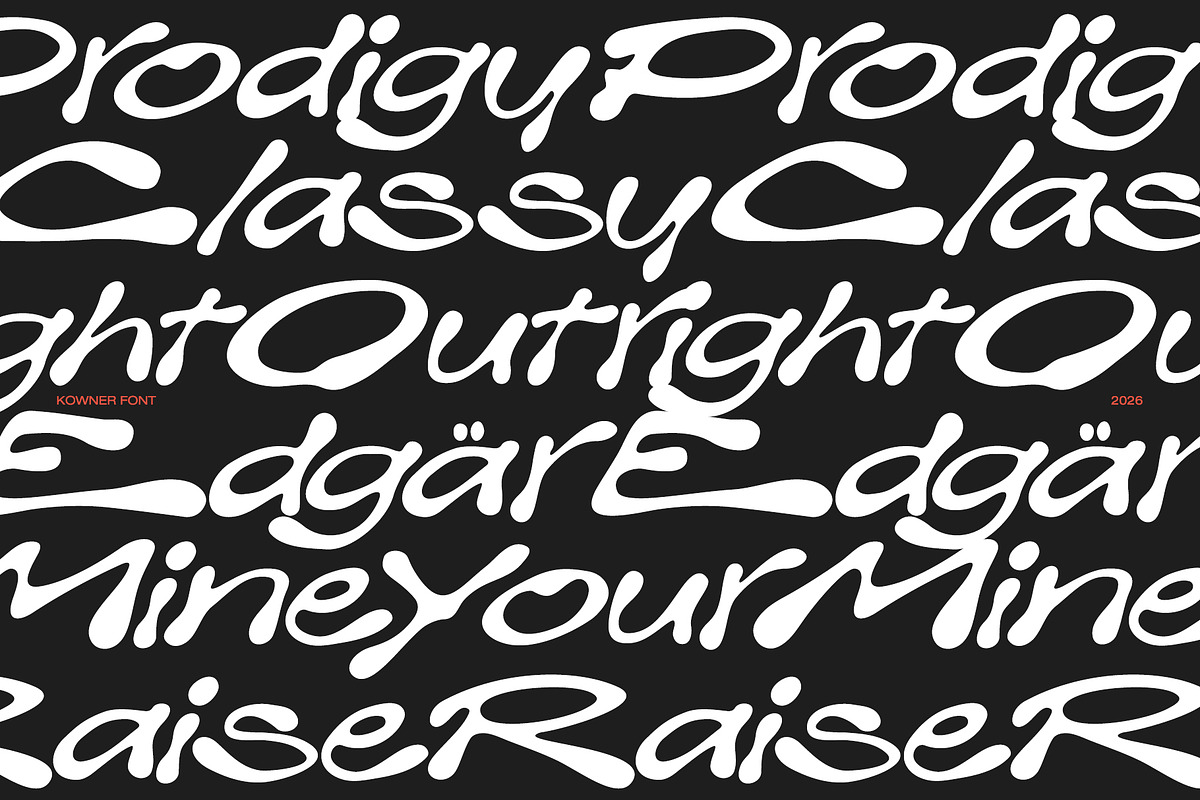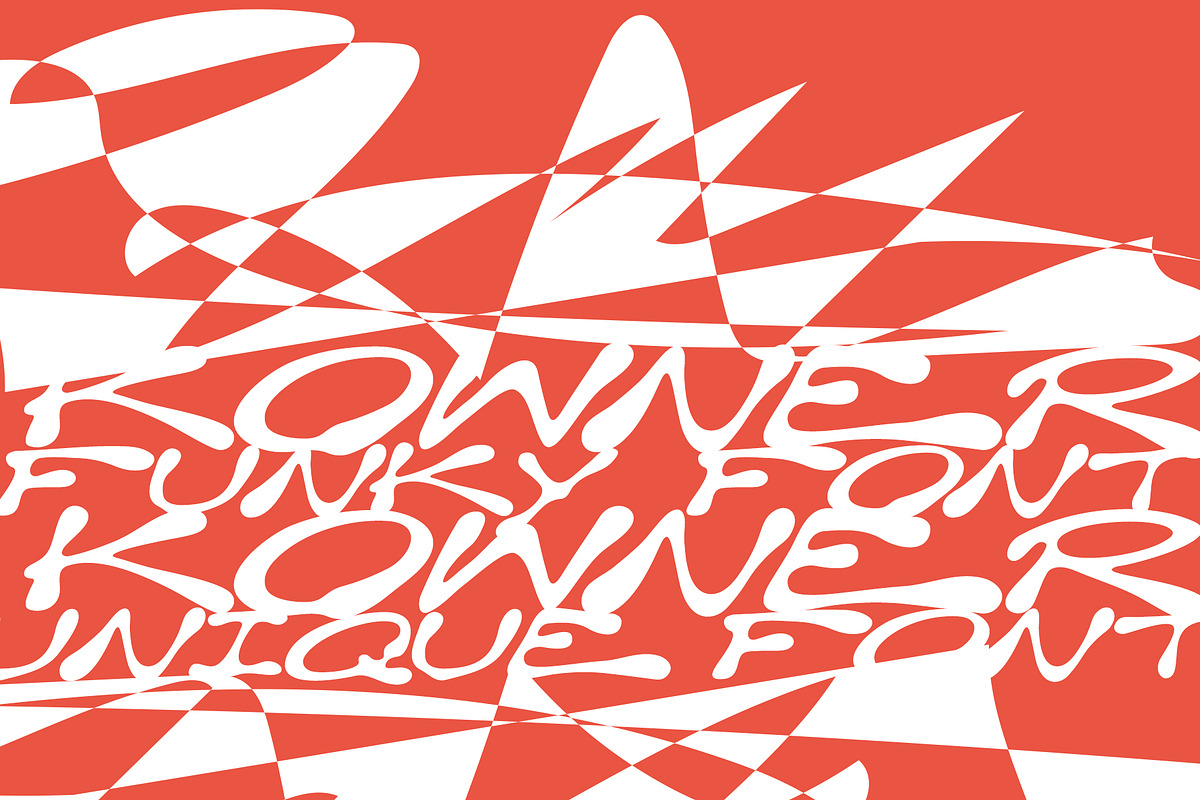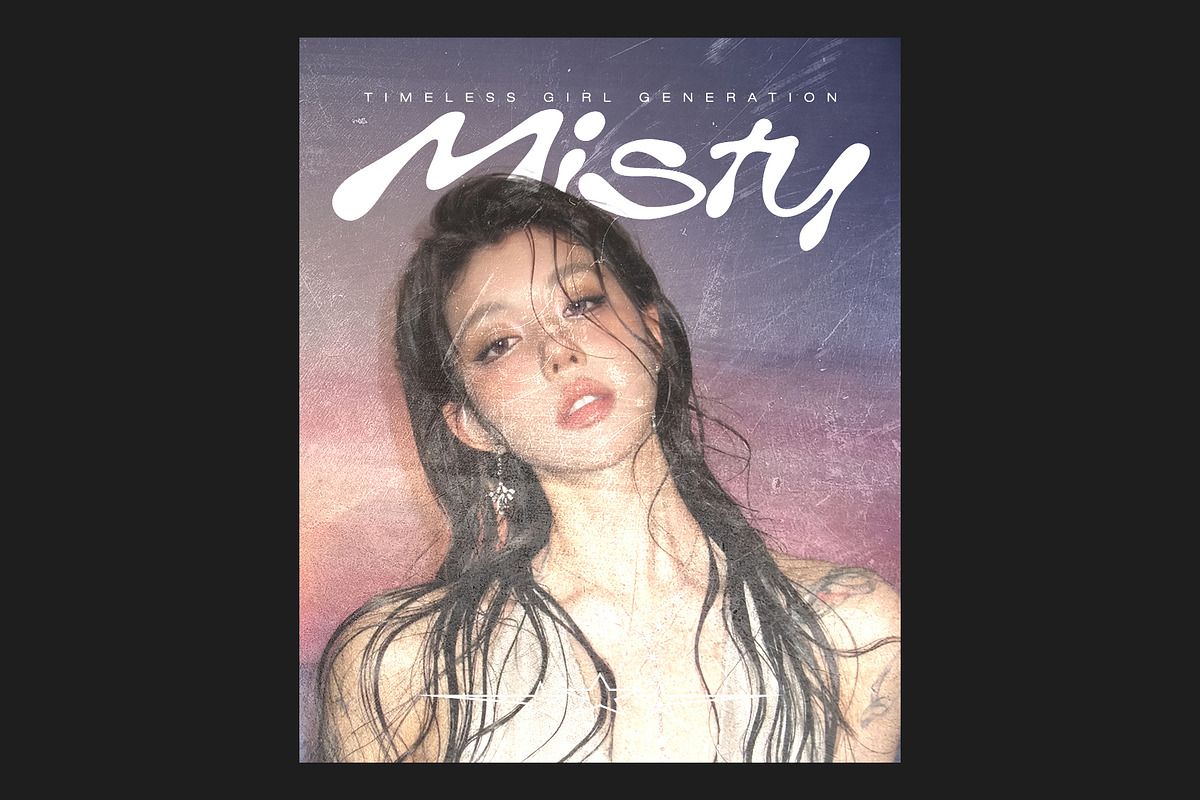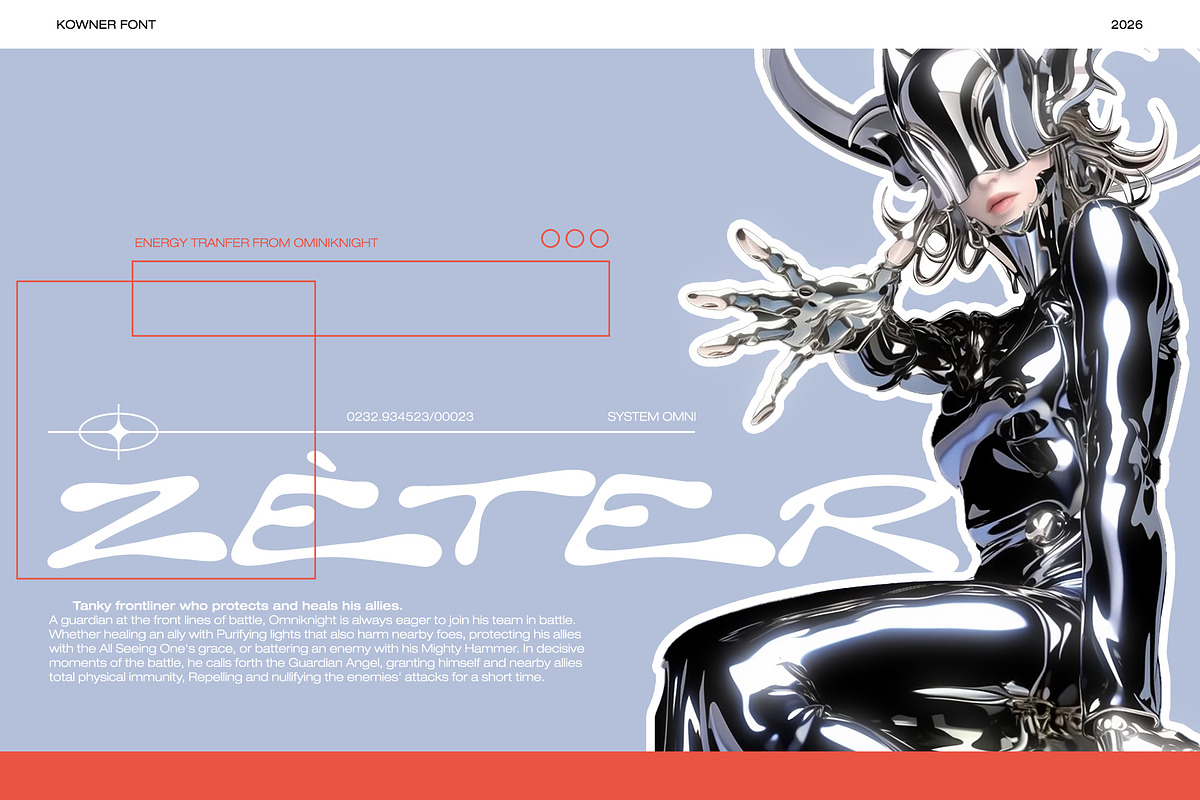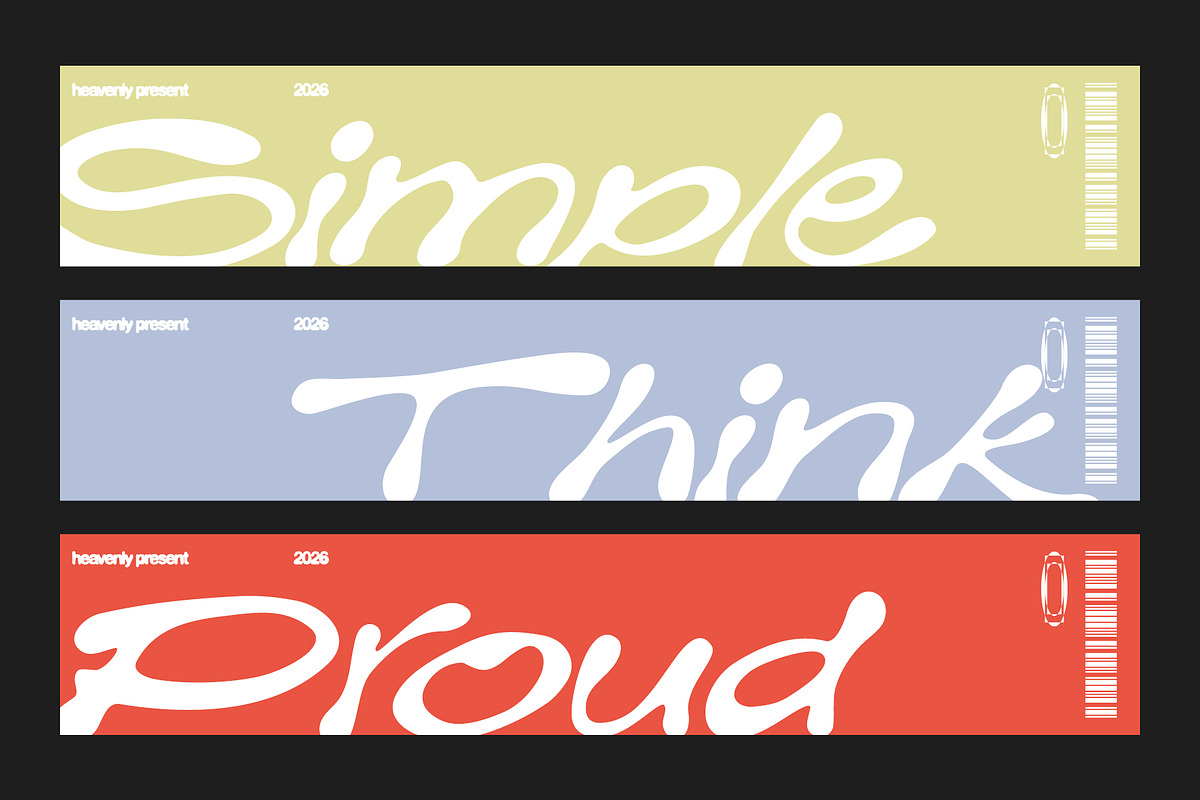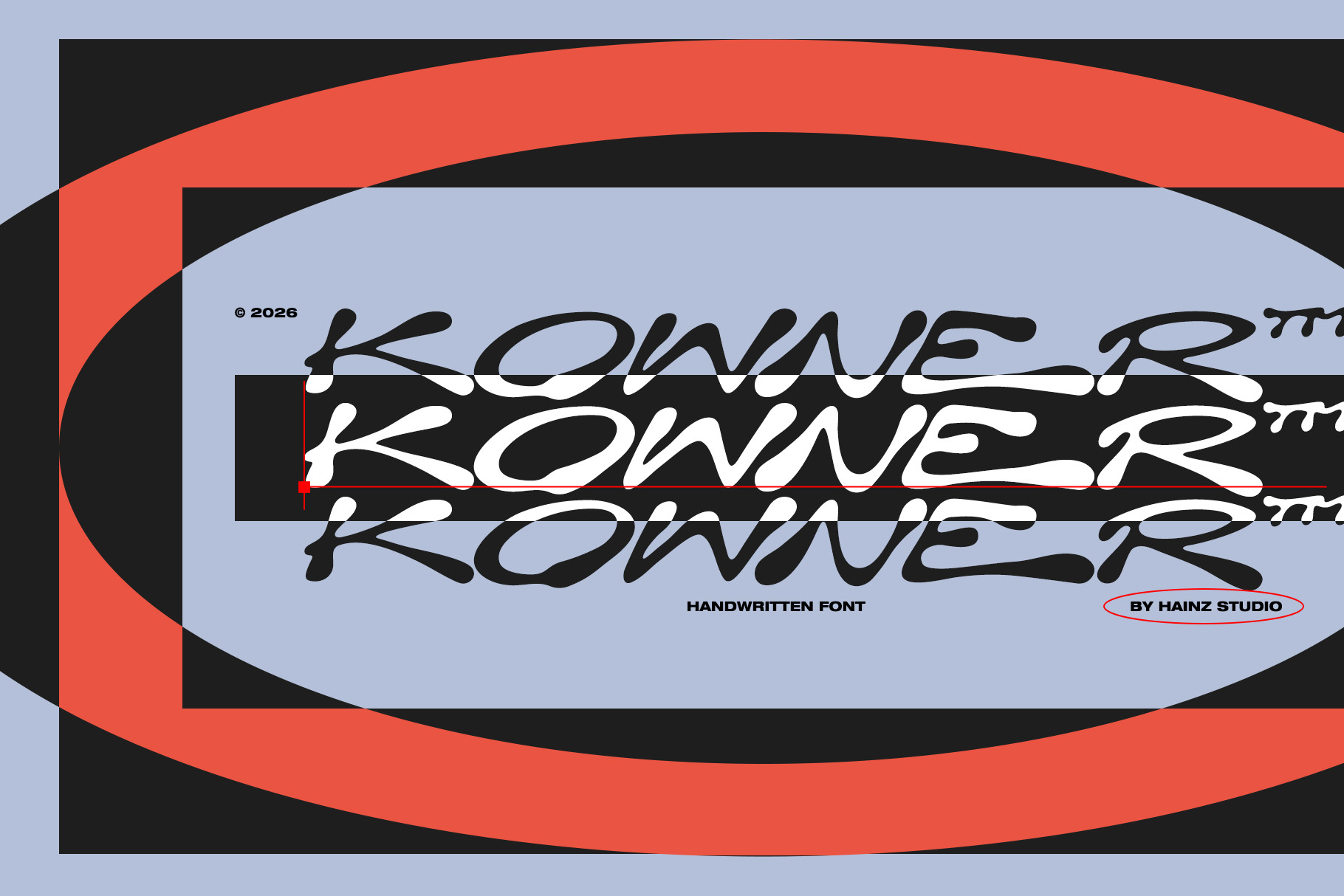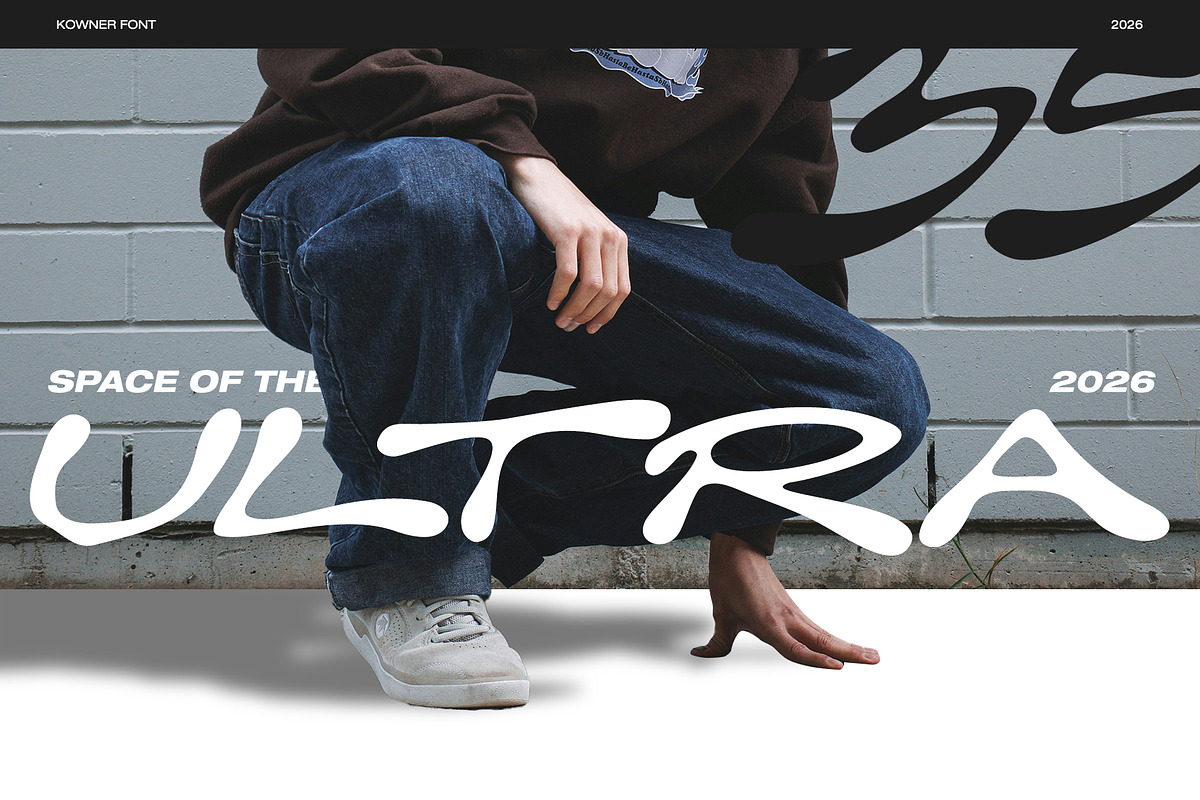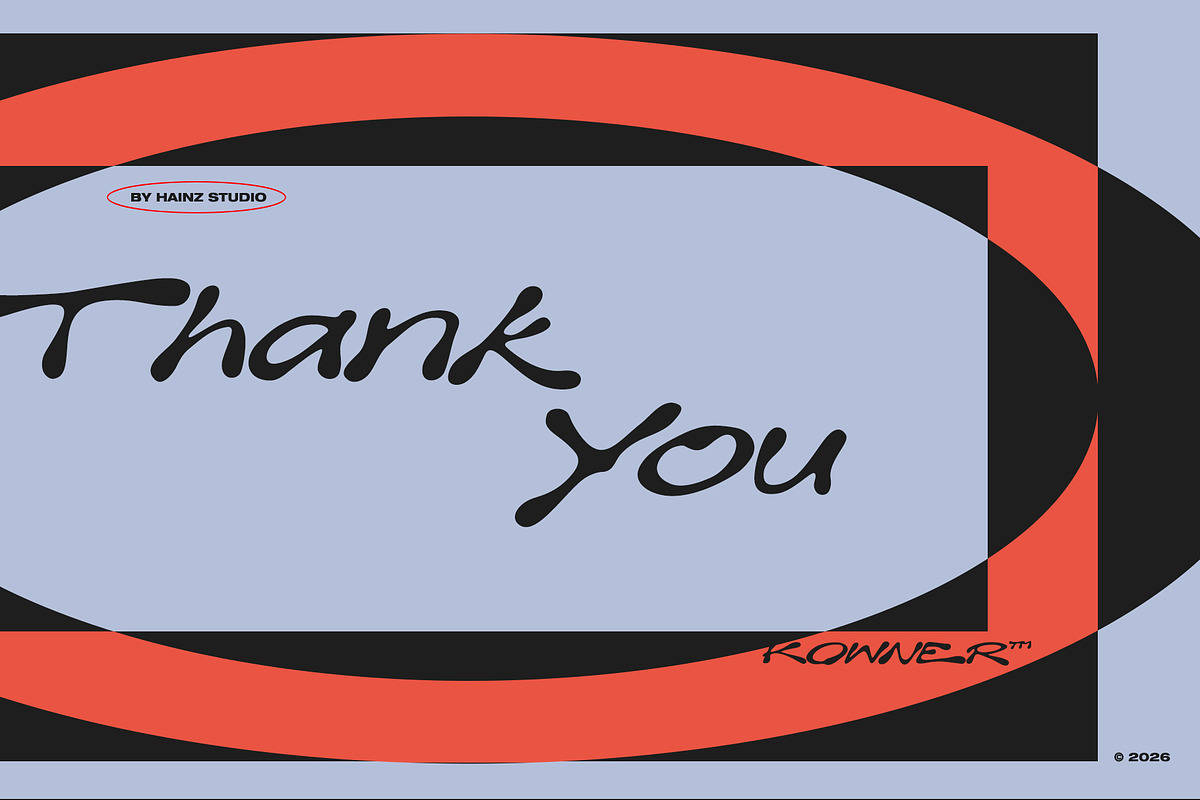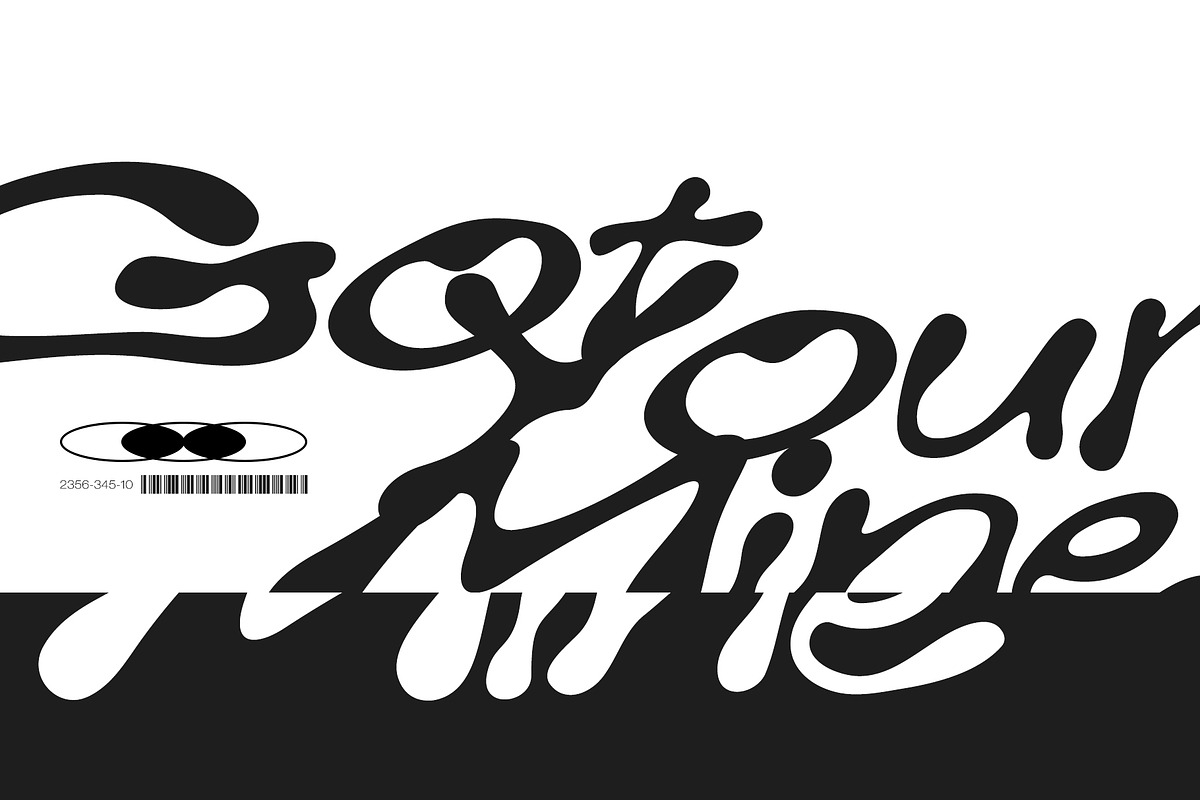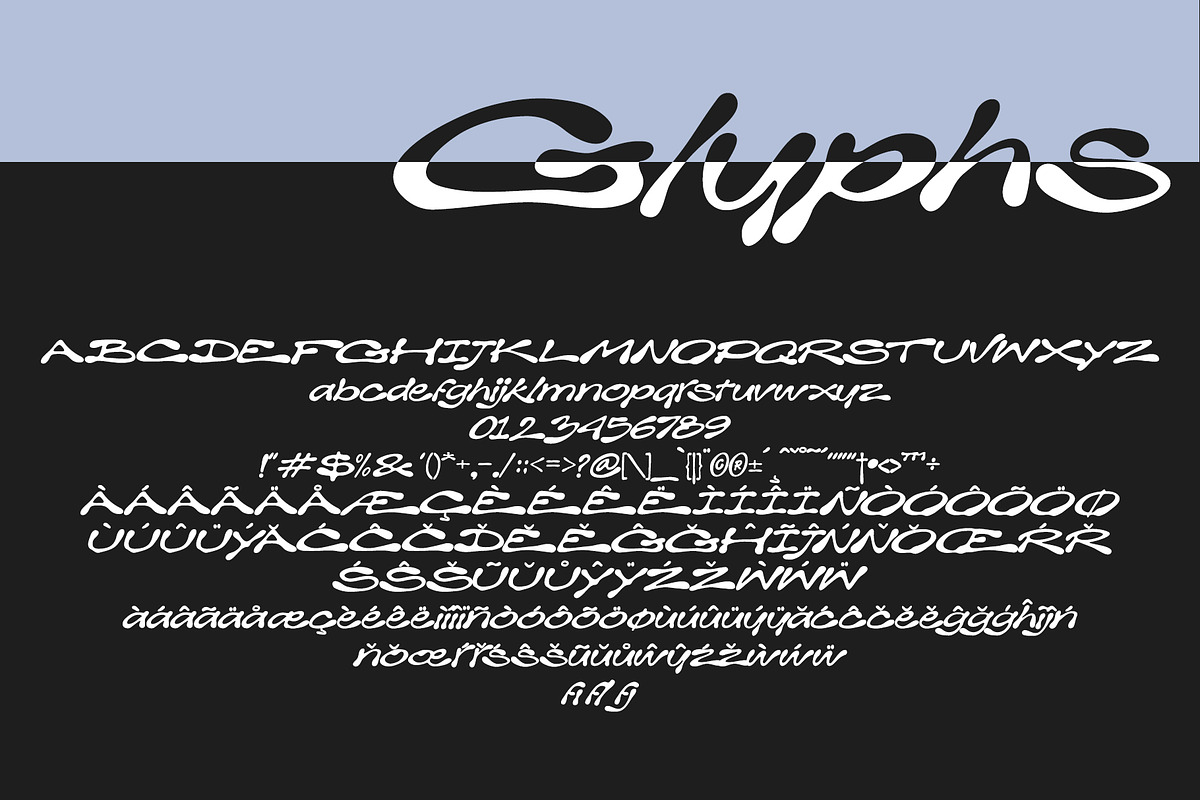
KOWNER – Handwritten Font
Kowner is a modern handwritten script font that combines a relaxed, elegant, and flowing style into one cohesive design. With its smooth strokes and natural letterforms, Kowner brings a personal and stylish touch to any creative project. Carefully crafted with unique and slightly playful characteristics, this font maintains excellent readability while adding expressive charm. It’s perfect for designers looking to create eye-catching and authentic visuals.
- Complete uppercase & lowercase characters
- Full multilingual support (extended Latin characters)
- Stylistic alternates
- Smooth and consistent handwritten flow
Perfect for: Branding, logos, wedding invitations, packaging, quotes, social media content, and more.